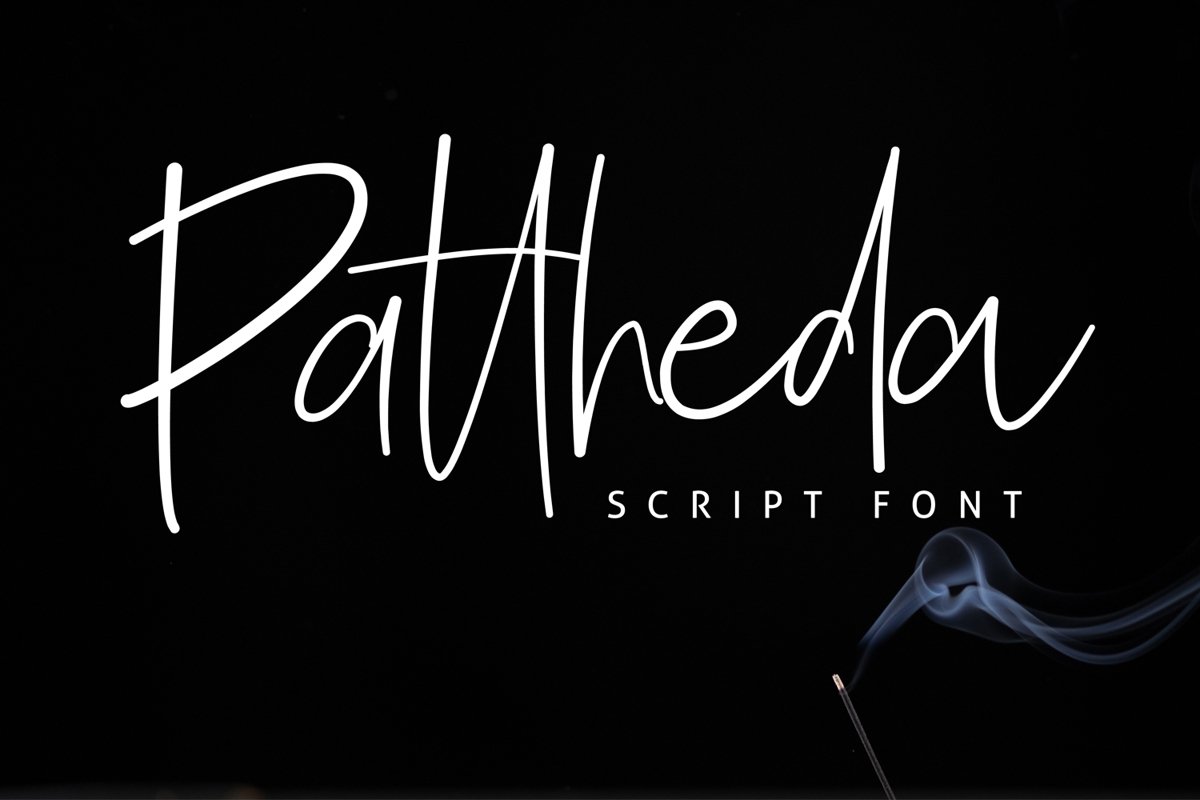
Pattheda Script
Hi there, we introduce our newest font earlier this year. Pattheda script font with natural handwriting style.
Pattheda will be very good to use for your design such as poster design, magazine headlines, business cards and others.
Ligatures â€¢ Are also available for several lowercase characters (double-letters which flow more naturally). These are only accessible via software with opentype capability or a glyphs panel, e.g. Photoshop/Illustrator.